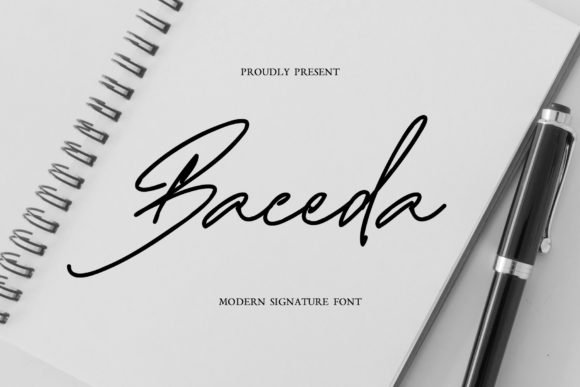
The Perfect Signature: Unlocking the Magic of Baceda Signature Font
Do you remember that moment when you finally nailed the perfect design for your business card or logo? The feeling of excitement and pride is unbeatable, and it’s all about the details. A well-crafted signature can make all the difference in leaving a lasting impression on your audience. That’s exactly what the Baceda Signature Font is designed to do – elevate your brand’s visual identity and make it truly unforgettable.
With its elegant, handwritten style, the Baceda Signature Font seamlessly blends classic calligraphic influences with a modern twist, ensuring it stays relevant in today’s design landscape. This versatile font is a game-changer for designers looking to add a touch of sophistication and personality to their work. By incorporating the Baceda Signature Font into your designs, you’ll be able to convey a sense of refinement and style that resonates with your target audience.
Baceda Signature Font Key Features
- Font Family: Baceda Signature Font
- Character Set: Latin, Cyrillic, Greek, Extended Latin, Extended Cyrillic
- Unique Characteristics: Hand-drawn, signature-inspired, modern calligraphy, elegant and sophisticated design, suitable for formal and business applications
Baceda Signature Font Review
I recently had the chance to work with the Baceda Signature Font, and overall, I was impressed with its unique style and versatility. ✨ The font’s elegant script style is perfect for creating beautiful and sophisticated designs, from wedding invitations to high-end branding materials.
One of the things that I love about this font is its wide range of glyphs, including ligatures, swashes, and alternates. ✨ This makes it easy to create custom and unique designs that really stand out. Additionally, the font is highly legible, making it suitable for both digital and print applications.
However, I did encounter a few limitations. ⚠️ The font’s complexity can make it difficult to pair with other fonts, and the sheer number of glyphs can be overwhelming for some designers. Additionally, the font’s high-end feel can make it seem overly formal or pretentious if not used carefully.
Overall, I would recommend the Baceda Signature Font to designers who are looking for a high-end, elegant script style. However, it may not be the best choice for designers who prefer a more straightforward or modern aesthetic.
- Unique script style with elegant feel
- Wide range of glyphs, including ligatures, swashes, and alternates
- Highly legible for both digital and print applications
- May be difficult to pair with other fonts
- Sheer number of glyphs can be overwhelming for some designers
Getting the Most Out of Baceda Signature Font
To get the most out of Baceda Signature Font, try the following:
- Use it for headings and titles to add a touch of elegance
- Experiment with different font sizes and colors to create visual interest
- Pair it with other fonts to create a unique and stylish combination
Baceda Signature Font is perfect for:
- Business cards and stationery
- Wedding invitations and event materials
Alternatives to Baceda Signature Font
Great Vibes is a modern calligraphy font that can be used for various design projects, including wedding invitations, logos, and branding materials. It is perfect for designers who want to add a touch of elegance and sophistication to their designs.
Comparison to Baceda Signature Font: Great Vibes has a more cursive and fluid feel compared to Baceda Signature Font’s more formal and structured design.
Carolyna Pro is a high-end, luxurious font that is ideal for designers who want to create high-end branding materials, such as luxury packaging, invitations, and logos. It is perfect for designers who want to add a touch of sophistication and elegance to their designs.